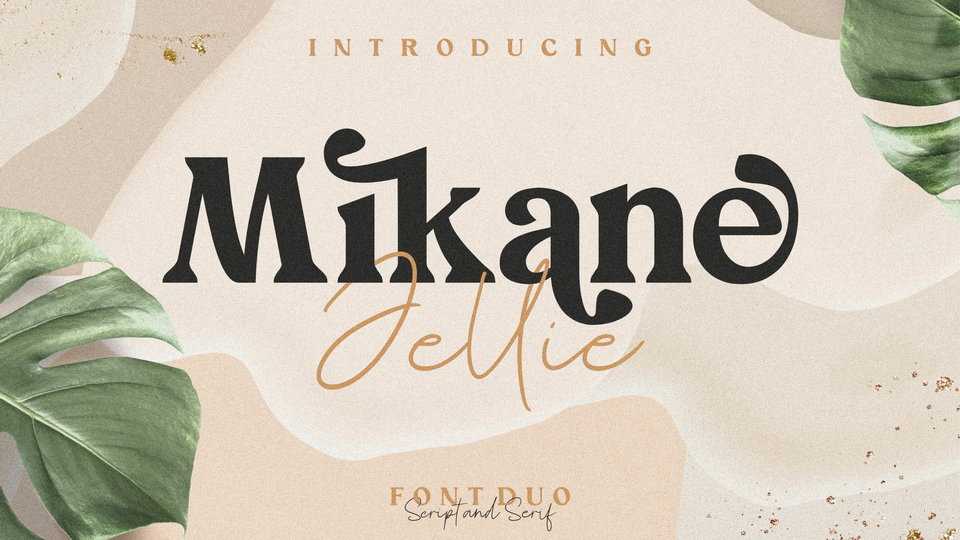
Download Mikane Jellie typeface, the perfect combination of elegant and trendy. Mikane Jellie script and serif will turn your creations into real works of art.
Designer: Paily Studio